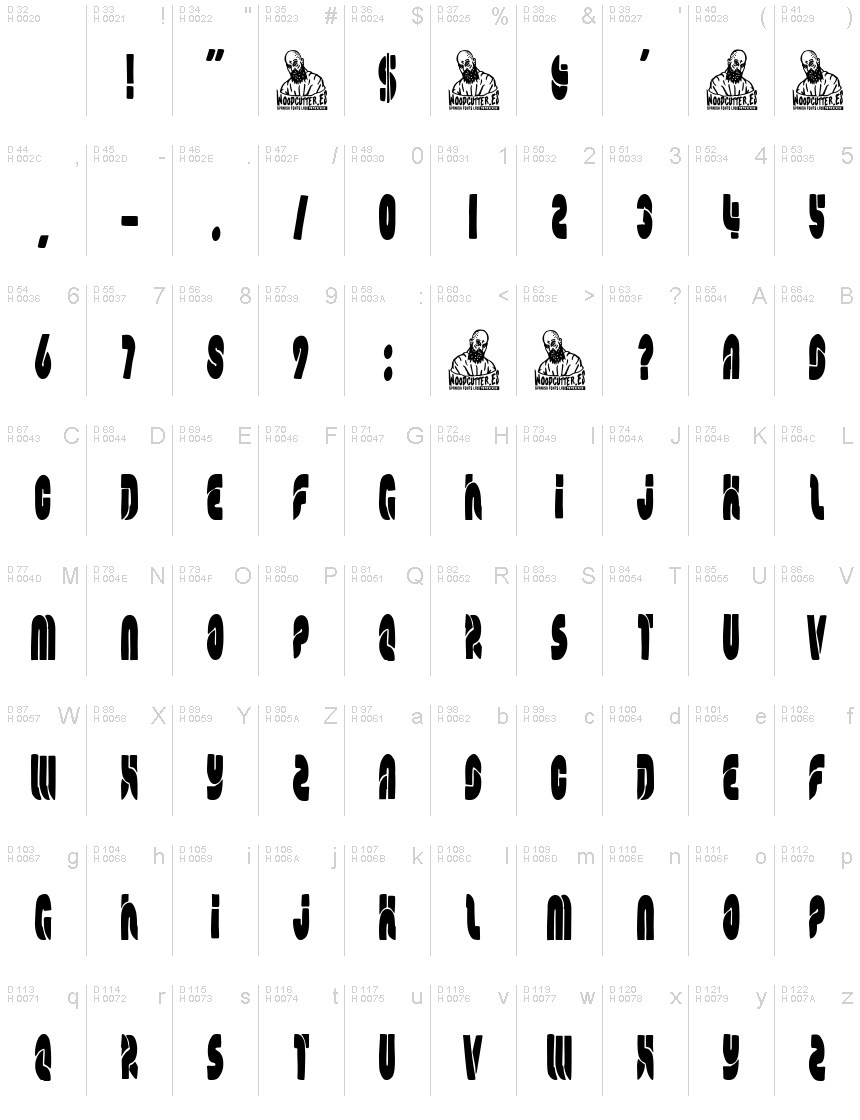
The Modern Family Empire
The Modern Family Empire font, designed by Woodcutter, embodies a vibrant and eclectic spirit with its groovy style. This bold display font captivates with its strikingly condensed forms, creating a lively visual impact that feels both contemporary and nostalgic. The rounded edges and playful curves invite attention, making it perfect for eye-catching headlines or branding elements that require a touch of fun.
Ideal for creative projects such as event posters, music album covers, or children’s media, this font excels in conveying energy and personality. Its unique characteristics enable it to stand out in various design contexts, ensuring your message resonates with flair and enthusiasm. Embrace the boldness of The Modern Family Empire for any project that seeks to celebrate style and vibrancy.